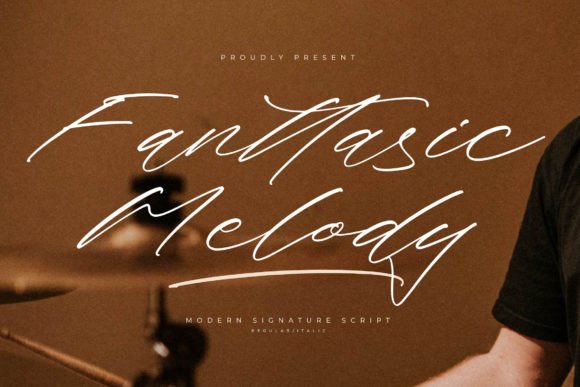
Fanttasic Melody Font: Elevate Your Designs with a Touch of Luxury
In the world of typography, fonts play a crucial role in conveying the tone and personality of a brand or design. When it comes to creating luxurious and elegant designs, the right font can make all the difference. This is where Fanttasic Melody Font comes in – a modern signature script font from Letterena that’s perfect for adding a touch of sophistication to your projects.
What is Fanttasic Melody Font?
Fanttasic Melody Font is a luxury script font that’s designed to add a touch of elegance and refinement to your designs. With its modern signature style, this font is perfect for creating high-end designs that exude luxury and sophistication.
What Can I Use Fanttasic Melody Font For?
Fanttasic Melody Font is a versatile font that can be used for a wide range of projects, including:
- Logos and branding projects
- Homeware designs and product packaging
- Mugs, quotes, posters, and shopping bags
- T-shirts, book covers, and name cards
- Invitation cards, greeting cards, and labels
- Photography, watermark, and special events
Why Choose Fanttasic Melody Font?
There are several reasons why Fanttasic Melody Font is an excellent choice for your luxury design projects:
- Luxury and Elegance: Fanttasic Melody Font is designed to add a touch of luxury and elegance to your designs, making it perfect for high-end projects.
- Versatility: This font can be used for a wide range of projects, from logos and branding to packaging and advertising.
- Easy to Read: Despite its elegant and cursive style, Fanttasic Melody Font is easy to read, making it perfect for body text and headlines.
- High-Quality: Fanttasic Melody Font is a high-quality font that’s designed to deliver exceptional results, even at large sizes.
Fanttasic Melody Font Style
Fanttasic Melody Font is a modern signature script font that’s characterized by its elegant and cursive style. The font features:
- Beautiful Swashes: Fanttasic Melody Font features beautiful swashes that add a touch of elegance and sophistication to your designs.
- Intricate Details: The font features intricate details that give it a luxurious and high-end feel.
- Classic and Timeless: Despite its modern style, Fanttasic Melody Font has a classic and timeless feel that will never go out of style.
Tips for Using Fanttasic Melody Font
Here are some tips for using Fanttasic Melody Font effectively in your designs:
- Use it Sparingly: While Fanttasic Melody Font is a beautiful font, it’s best to use it sparingly to avoid overwhelming your designs.
- Pair it with Other Fonts: Fanttasic Melody Font pairs well with other fonts, so don’t be afraid to experiment with different combinations.
- Adjust the Size and Color: Adjust the size and color of the font to suit your design needs and to create visual hierarchy.
Fanttasic Melody Font is a luxury script font that’s perfect for adding a touch of elegance and sophistication to your designs. With its modern signature style, beautiful swashes, and intricate details, this font is sure to elevate your designs to the next level. Whether you’re working on a logo, branding project, or packaging design, Fanttasic Melody Font is an excellent choice.